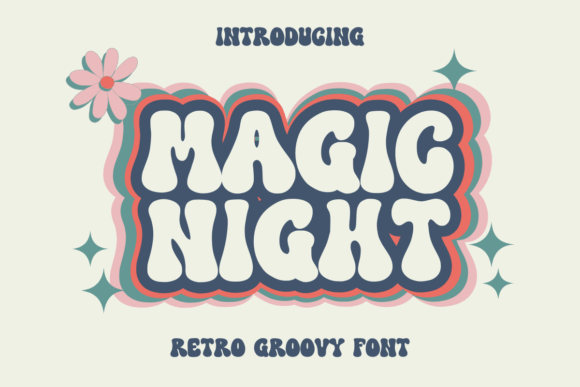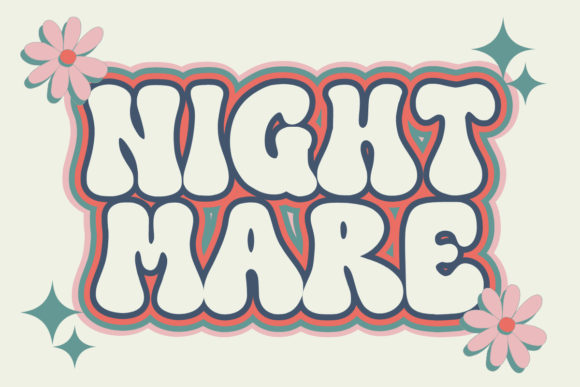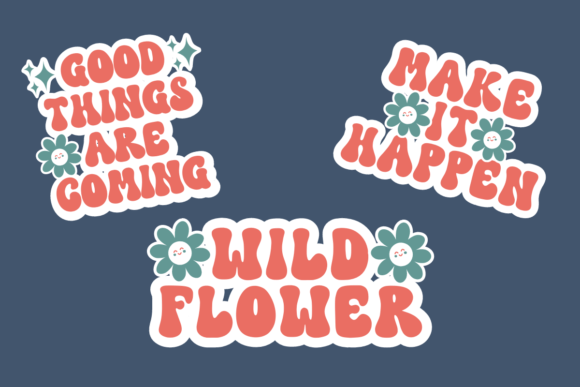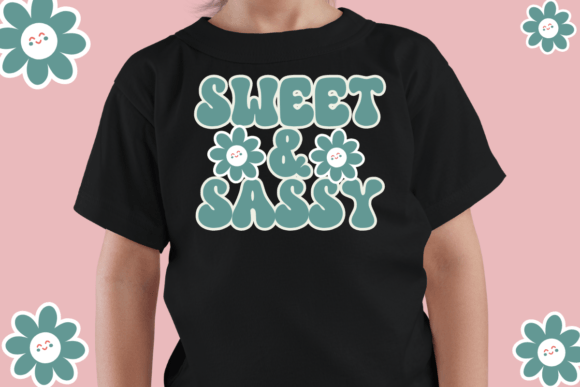
Magic Night Font: A Playful Retro Display Font for Groovy Designs
About the Magic Night Font
Unleash your creativity with Magic Night Font, a versatile font perfect for a wide range of applications. Magic Night is a fun and retro font, it’s perfect for designs that need a playful, cheery accent. Magic Night is suitable for book covers, posters, packaging, merchandise, logotypes, and many more!
Magic Night’s playful, retro style shines in headlines, short bursts of text on posters, and packaging design where its fun energy can be fully expressed. It works exceptionally well for branding projects targeting younger audiences or those with a vintage aesthetic. Avoid using it for body copy or lengthy text blocks; its quirky character isn’t suited to readability in extended paragraphs or UI elements.
Pairing Magic Night effectively requires considering its retro charm. A clean, geometric sans-serif like Montserrat can create a pleasing contrast, grounding the whimsical nature of Magic Night. Alternatively, a classic serif such as Garamond can add a touch of sophistication, balancing its playful energy.
The font’s core personality is undeniably cheerful and retro, conveying a sense of lightheartedness and nostalgia. Think vintage toys, amusement parks, or brands focused on fun and playful experiences.
Magic Night Font Usage Examples
Magic Night Font Example